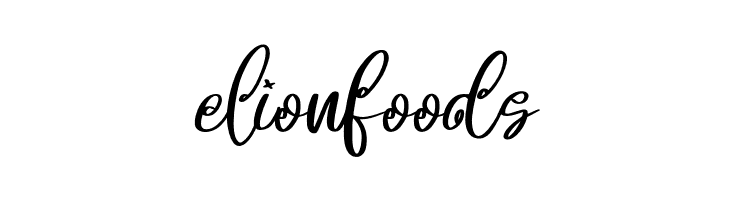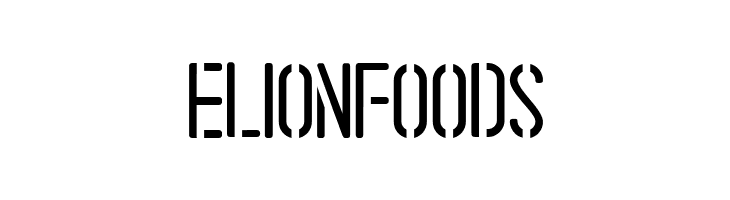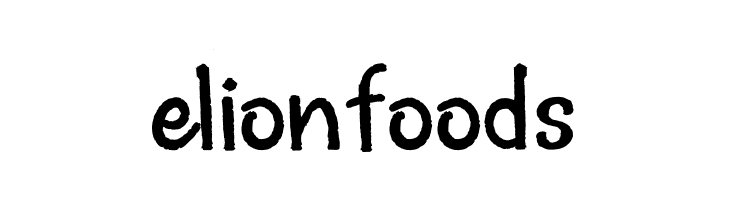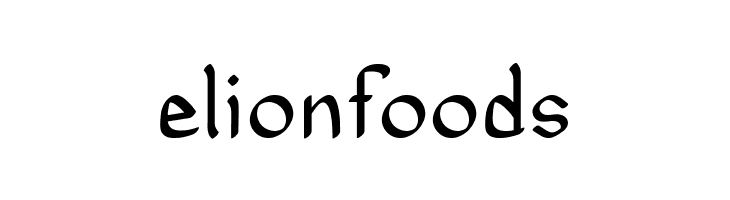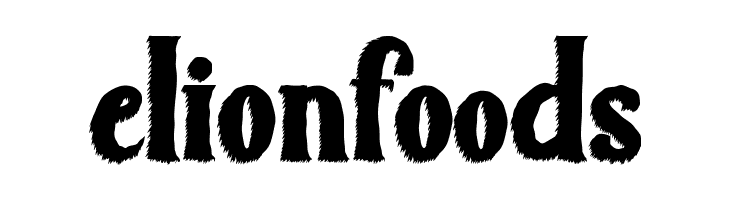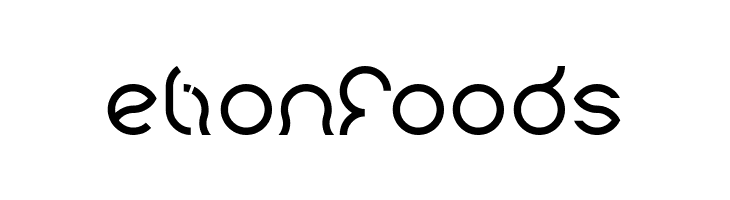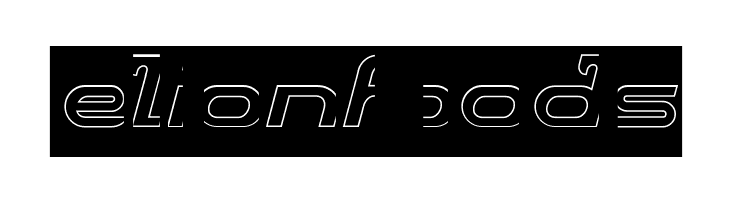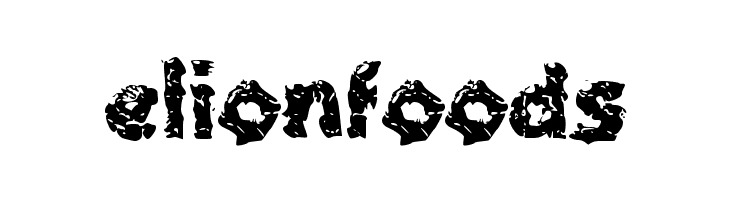
A flowing, cursive script with elegant loops and a handwritten appearance.
A bold, military-inspired stencil font with distinct cut-out sections.
A playful, handwritten font with an informal and lively style.
A modern font with a blend of geometric and organic elements, offering a dynamic and cohesive style.
A playful, handwritten font with smooth, flowing curves and a casual style.
A whimsical and decorative font with festive, playful elements.
A jagged, horror-themed font with rough, textured characters.
A playful, rounded font with dynamic curves and varying stroke thickness.
A bold, hollow, military-inspired font with sharp angles and clean lines.